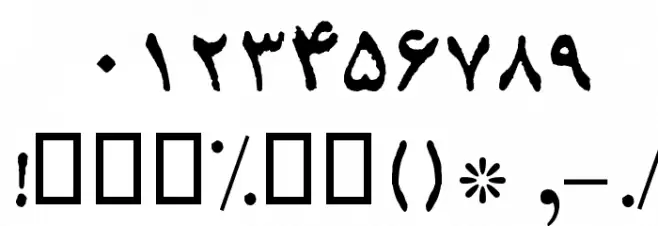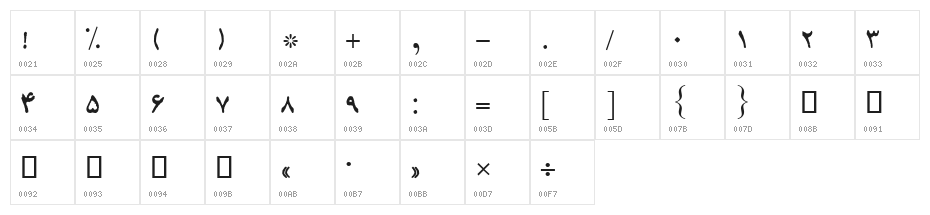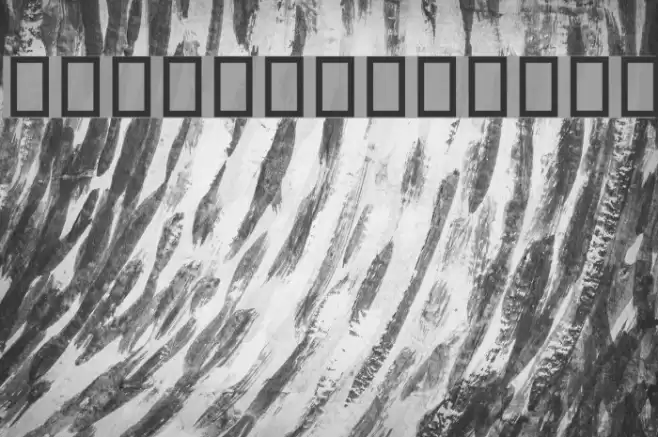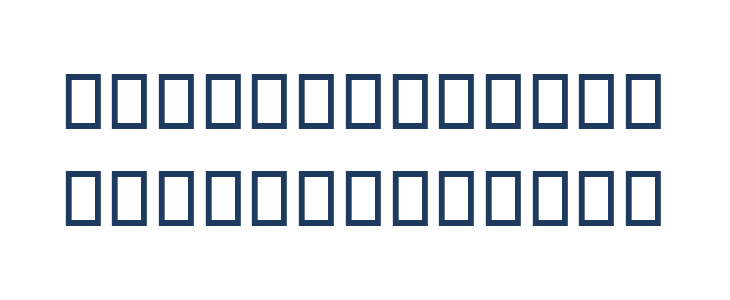
Akhbaar Font
Akhbaar Description
This font features a unique and artistic style, characterized by its flowing and cursive design. The characters exhibit a handwritten quality, with smooth curves and a dynamic rhythm that gives it a lively appearance. The numbers are particularly distinctive, with a playful and organic form that complements the overall aesthetic. The special characters maintain the same fluidity, enhancing the cohesive look of the font. This style is well-suited for projects that require a personal touch or an artistic flair.
Overall StyleArtistic
Use CaseLogos, Invitations, Artistic projects
Proposed ProjectsIdeal for invitations, greeting cards, artistic projects, and branding that requires a personal touch.